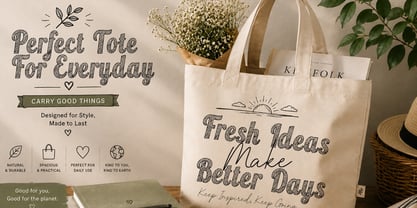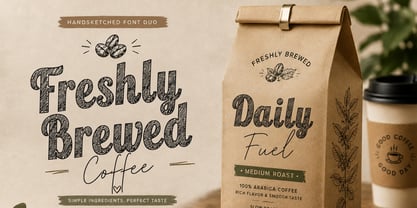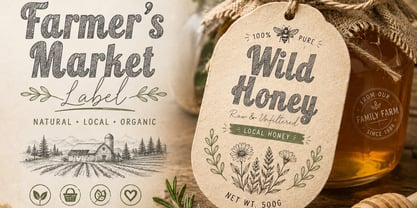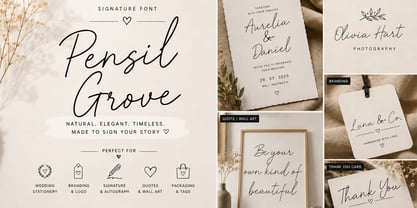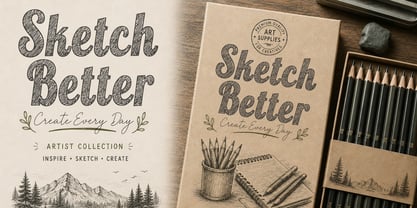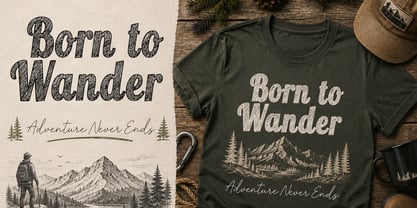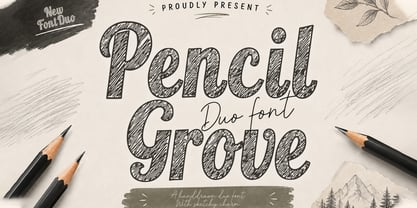
Pencil Grove
by Cocodesign
The Pencil Grove Font Family was designed by Muhammad Zaini and published by Cocodesign. Pencil Grove contains 2 styles and family package options. More about this family
Pencil Grove Duo is a unique handcrafted font duo that features a bold sketch serif paired with a flowing signature script. Drawing inspiration from pencil illustrations and hand-drawn textures, this font offers a warm, artistic, and authentic aesthetic for various creative projects. The textured serif imparts a strong handcrafted character, while the elegant signature script provides a natural contrast, allowing for the creation of eye-catching typography with a distinctive handmade feel. Ideal for branding, packaging, posters, stationery, book covers, social media, apparel, logos, labels, invitations, craft projects, and creative merchandise, Pencil Grove Duo enhances any design with its versatile style and charm.
Designers: Muhammad Zaini
Foundry: Cocodesign